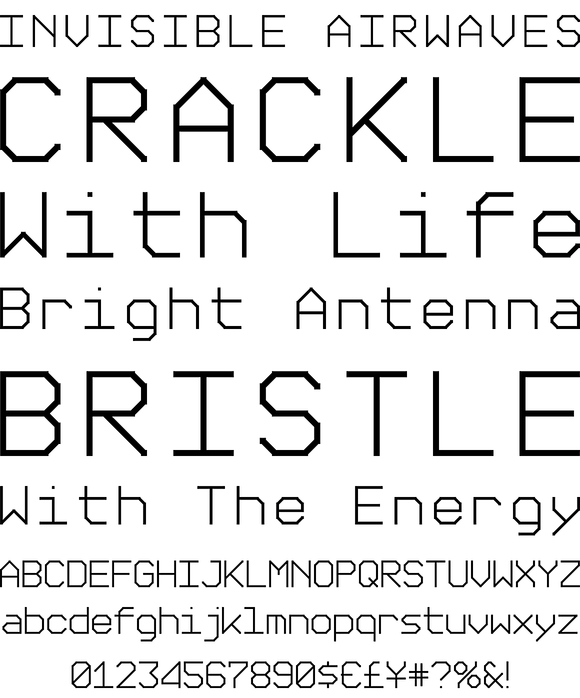
Chunk Feeder
Chunkfeeder was inspired by the many vernacular forms of lettering created for high speed printing and electronic displays found in our modern techie world such as postal packing slips, airline tickets and informational video displays. Many of these type of fonts are designed by engineers and interface designers who presumably do not have a background in letterform design and consequently these glyphs have many quirky idiosyncrasies.
In keeping with it's mechanical inspiration, Chunkfeeder is a monospaced font, much like an OCR type font. Chunkfeeder has a rather ridged modularity but it incorporates more typographic nuance into the letterforms than most other fonts of this style, while exploiting some of the visual artefacts of high speed printing.